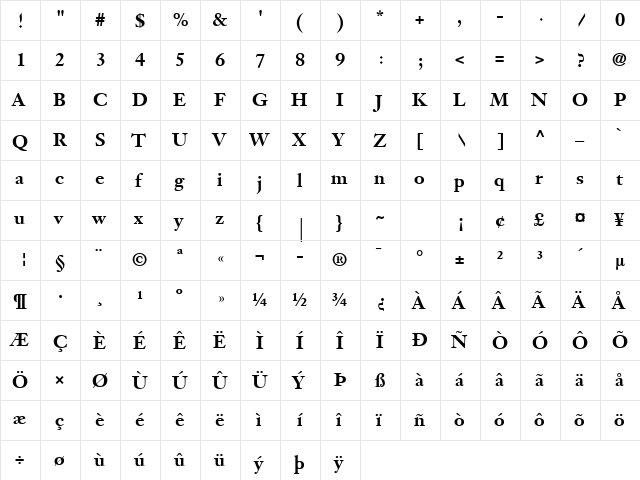
Hassan LT Bold
| Foundry | Linotype GmbH |
| Designer | Hassan Sobhi Mourad |
Design Context for Hassan LT Typeface
Hassan LT is a composed and adaptable typeface that performs quietly and consistently across a wide range of design contexts. Its bold stroke weight gives it real presence on the page.
Pro Tip: Pair Hassan LT with a font of contrasting weight or personality to build a more expressive typographic hierarchy.